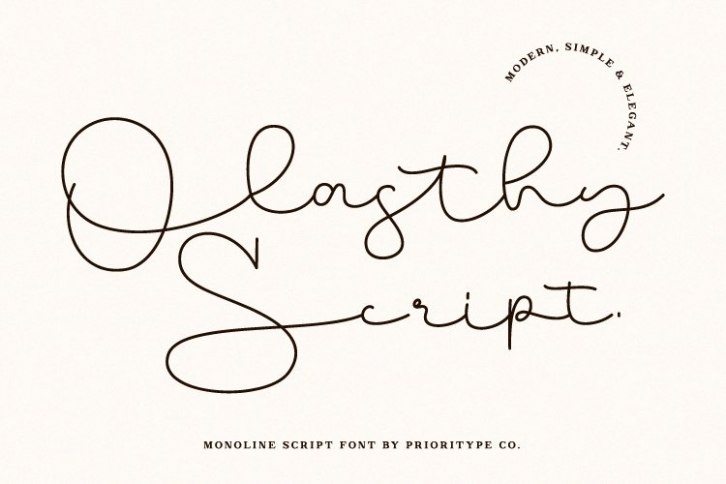
Olasthy Script is a trendy and unique font with an authentic style. It was designed by prioritype and it's a great choice for creative people who need such a font. It was released on December 27, 2021 and the file size is 20.85 MB. Olasthy Script will add an organic vibe to any design idea!